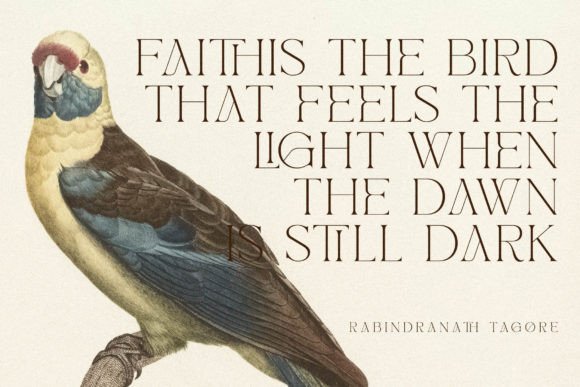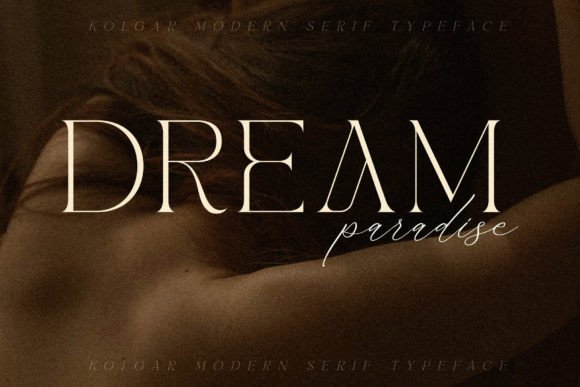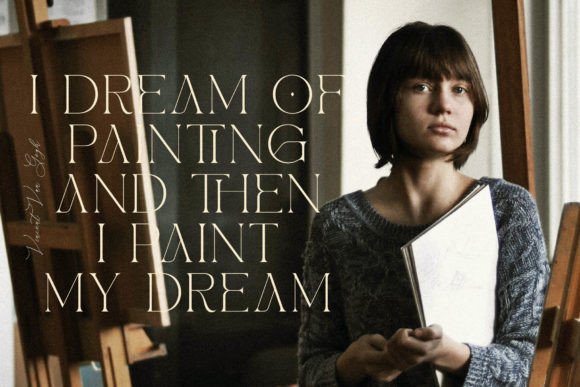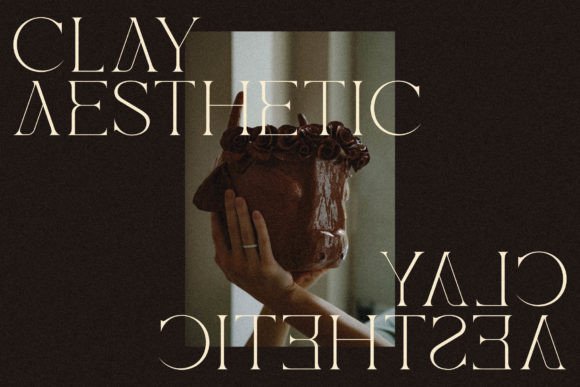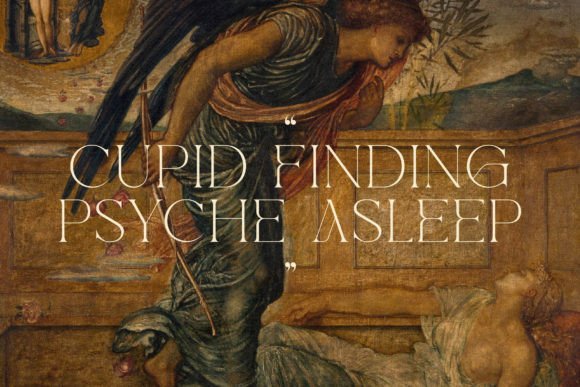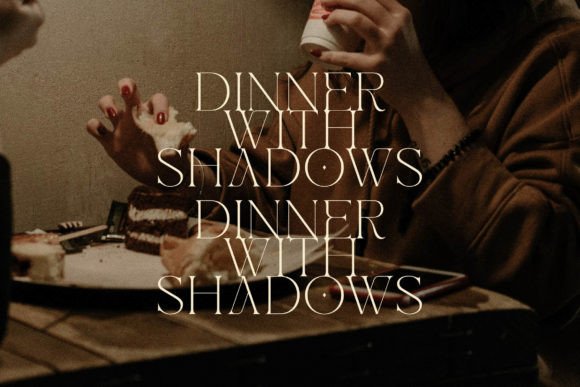
Introduction to Kolgar Font
Have you ever stumbled upon the perfect design element while working on a creative project, and it instantly elevates your entire concept? That’s exactly what happened to many designers when they discovered the Kolgar Font. This modern and classy serif font has been a game-changer in the world of design, offering a high-quality addition to any designer’s library.
Whether you’re working on a free download project or a commercial design, the Kolgar Font is a valuable resource that can bring sophistication and elegance to your work. Its unique blend of classic and modern elements makes it an ideal choice for designers who want to create something truly special. With its transparent background and versatile design, the Kolgar Font is sure to be a favorite among designers.
As a design resource, the Kolgar Font is a must-have for any creative project. Its ability to elevate any concept makes it an invaluable asset for designers who want to take their work to the next level.
Key Features of Kolgar Font
- Features a transparent background, making it perfect for overlaying on images or videos
- Includes a wide range of characters, including uppercase and lowercase letters, numbers, and punctuation
- Unique, modern design that adds a touch of elegance to any creative project
Honest Review: Kolgar Font
As a designer, I’m always on the lookout for high-quality design resources to enhance my creative projects. The Kolgar Font is one such find that I’m excited to share with you. ✨
Here are some of the things I like about the Kolgar Font:
- Unique and modern design aesthetic that adds a touch of sophistication to any project.
- Transparent background, making it easy to use with any color scheme.
- May not be suitable for all types of projects, particularly those requiring a more traditional or formal font style.
- Some characters may not be fully compatible with certain operating systems or software.
- ⚠️ Limited character set, which may not be ideal for projects requiring extensive text.
Overall, I’m impressed with the Kolgar Font’s unique design and versatility. While it may have some limitations, it’s definitely a valuable addition to any designer’s toolkit. With its high-quality design and transparent background, it’s perfect for creative projects that require a modern and sophisticated touch. ✨
Tips for Getting the Most Out of Kolgar Font
To get the most out of the Kolgar Font, use it in combination with other design elements, such as graphics and textures. You can also experiment with different font sizes and styles to create a unique look. Additionally, use the transparent background feature to create layered designs and add depth to your design.
Common Use Cases for Kolgar Font
The Kolgar Font is a versatile design resource that can be used in a variety of projects, from logos and social media graphics to presentations and documents. It is particularly well-suited for use in creative projects that require a high-quality, modern font with a transparent background.